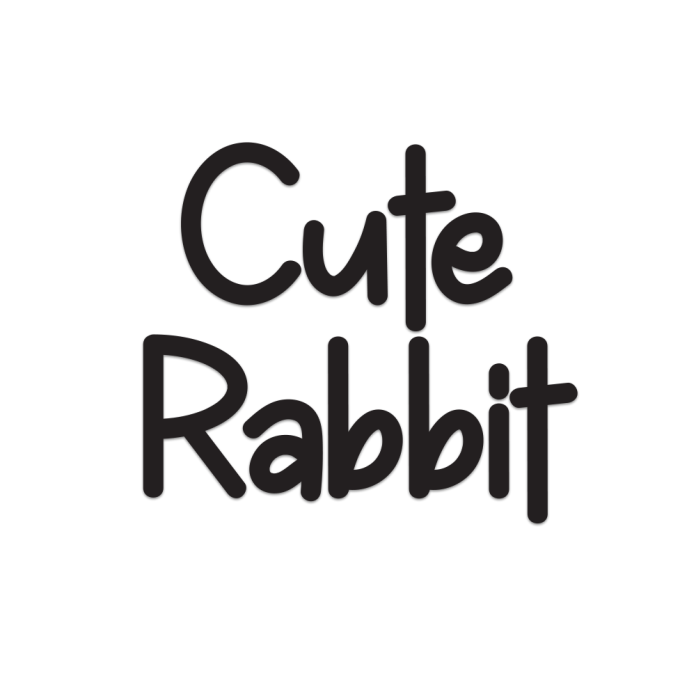
Cute Rabbit is an adorable and cheerful display font inspired by the charm of cute bunnies and childhood whimsy. Its rounded letters, bouncy shapes, and sweet personality make it perfect for kids’ projects, baby products, greeting cards, and anything that needs a dose of fun.
Whether you're creating a children's book or designing a playful logo, Cute Rabbit adds a joyful and heartwarming vibe to your design.
Playful, cartoon-like letterforms
Rounded, soft shapes with a joyful feel
Great for kids’ themes, logos, product packaging, and invitations
Hop into creativity with the fun and friendly Cute Rabbit font!